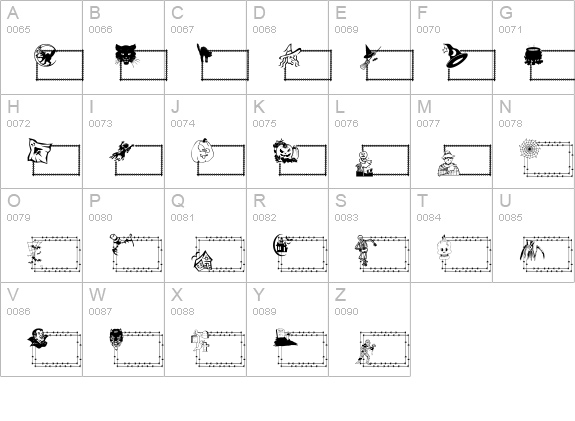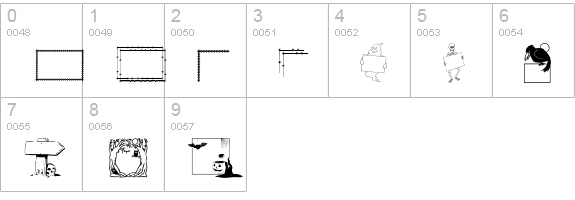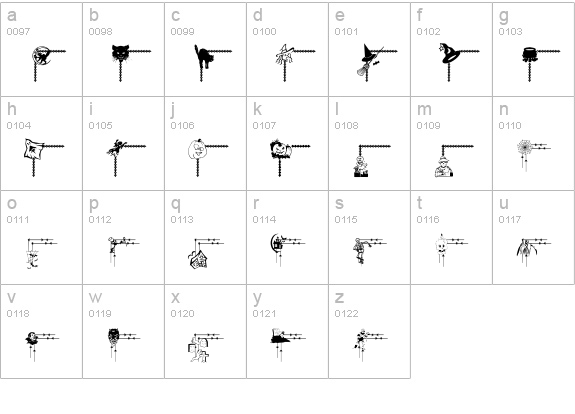
Introducing LCR Frightful Frames font, a spine-chillingly captivating typeface that will send shivers down your spine. This hauntingly beautiful font is perfect for adding an eerie touch to your Halloween-themed designs, horror movie posters, or any project that requires a touch of macabre elegance. LCR Frightful Frames font features an assortment of intricate frames, each meticulously designed to evoke a sense of dread and fascination. From twisted vines and ominous skulls to ghostly apparitions and eerie cobwebs, these frames serve as chillingly enchanting borders to enhance your text and graphics. With its intricate details and darkly enchanting style, LCR Frightful Frames font is sure to captivate your audience and leave them spellbound. Whether you're creating invitations for a haunted mansion party or designing a spooky greeting card, this font will add an extra layer of frightful delight. And the best part? LCR Frightful Frames font is available for free download at FontsMarket.com! Yes, you heard it right. You can now access this spine-tingling font without spending a single penny. So, grab this opportunity and bring a touch of thrilling elegance to your designs with the LCR Frightful Frames font. Don't miss out on this chance to add a bone-chillingly beautiful font to your collection. Download LCR Frightful Frames font for free at FontsMarket.com and unleash your creativity in the most frightful way possible. Happy designing!